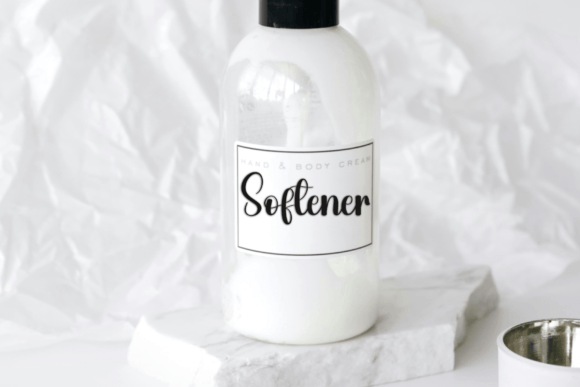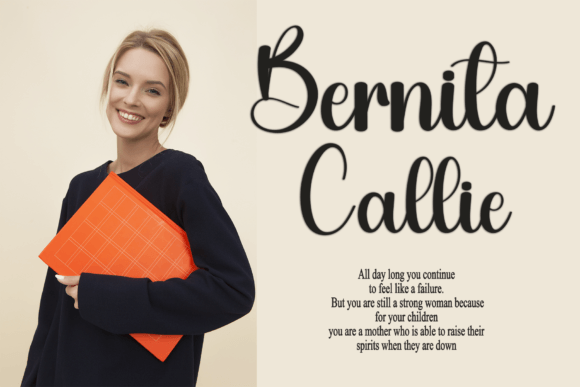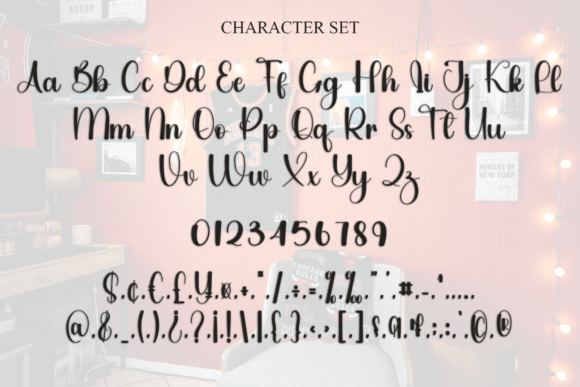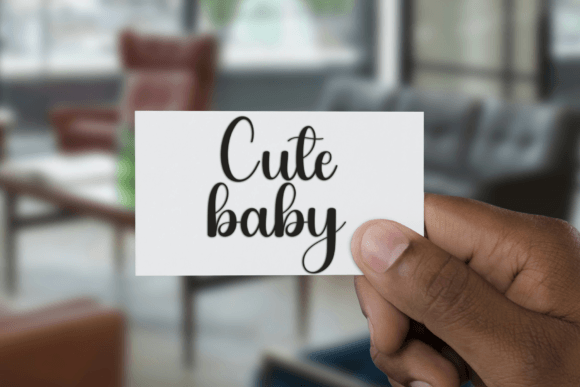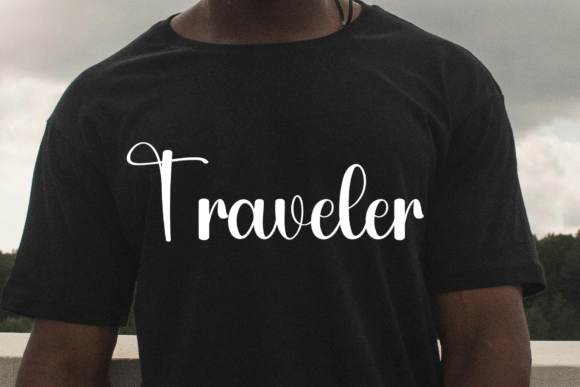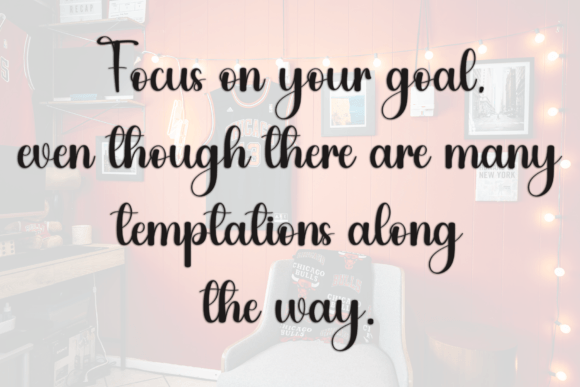
Introduction to Fanatical Font
Have you ever stared at a blank page, trying to bring a creative project to life? The cursor blinks impatiently, waiting for your next move. But then, it happens – a spark of inspiration strikes, and the words start flowing. You’re on a roll, and your imagination runs wild. This is the moment when the right font can make all the difference.
Enter the Fanatical Font, a beautiful and elegant typeface that adds a touch of sophistication to any design. Its graceful strokes and stylish flair make it perfect for signatures, logos, and any creative work that demands a touch of individuality. Whether you’re a seasoned designer or a beginner, this high-quality font is an invaluable resource that can elevate your projects to the next level.
Key Features of Fanatical Font
- High-quality, unique design perfect for creative projects
- Perfect for digital art, graphic design, and web design projects
- Comprehensive character set, including uppercase and lowercase letters, numbers, and symbols
Honest Review: Fanatical Font
I recently had the chance to dive into the Fanatical Font, and I must say it’s a unique addition to my design resource library. What immediately caught my eye was the high quality of the font – it’s crisp, clean, and perfect for any creative project.
Here are some things that work well with the Fanatical Font:
- ✨ Highly customizable: The font is available in multiple styles and weights, giving me plenty of options for my design projects.
- ✨ Easy to use: The font is well-behaved and easy to work with, even in complex designs.
- ✨ Unique aesthetic: The Fanatical Font has a distinctive look that sets it apart from other fonts in my collection.
- ⚠️ Limited language support: Unfortunately, the font doesn’t support all languages, which might be a concern for designers working on international projects.
- ⚠️ Limited font sizes: While the font is highly customizable, it’s limited in terms of font sizes, which might not be ideal for very large or very small text.
Overall, I’m impressed with the Fanatical Font. It’s a solid addition to my design resource library, and I’d definitely recommend it to fellow designers looking for a unique and high-quality font for their creative projects.
Tips for Getting the Most Out of Fanatical Font
Use Fanatical Font with a transparent background to create a unique and eye-catching design. Experiment with different font sizes and styles to add visual interest to your project.
Fanatical Font is ideal for creative projects, such as logos, posters, and infographics. Its high-quality design and transparent background make it a versatile resource for designers and non-designers alike.